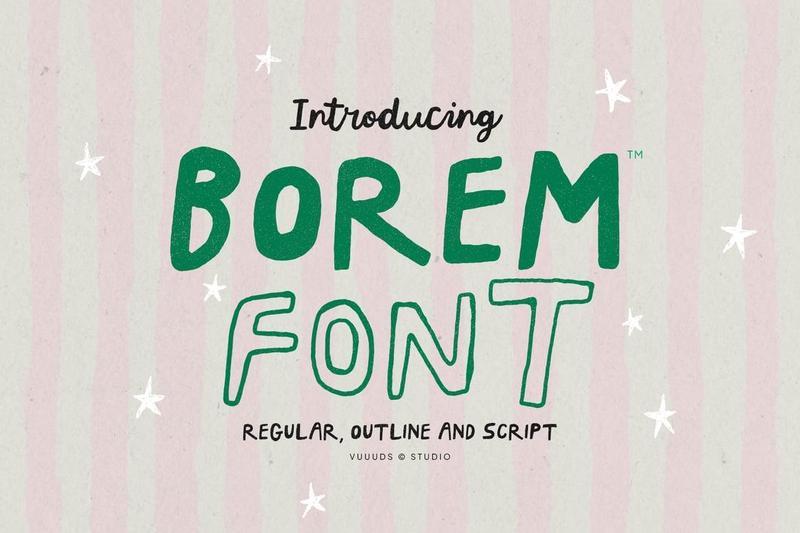
Introducing Borem Font!
Borem is handcrafted unique font with 3 different style. regular, outline and script.
Every single letters have been uniquely crafted.